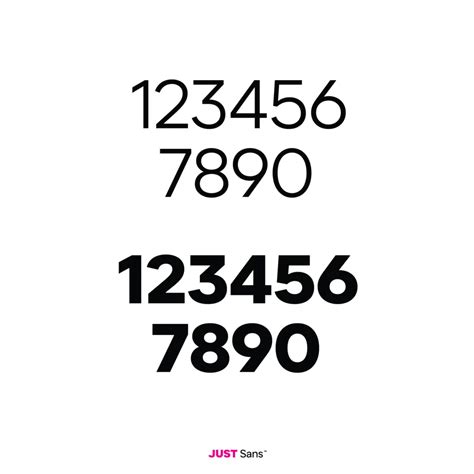
Best Numerical Fonts. This font has two font files and creates a fancy look for your designs. Web the best number fonts 1.
Web this is elemental in articulating a point, regardless of the visual project. This font has two font files and creates a fancy look for your designs. Web impact label is a decorative font presented by tension type. Hence, we put together this article with a list of the best number fonts online to help you create more stylish designs. Web best number fonts for awesome designs: 50+ best number fonts for displaying numbers. Web the best number fonts 1. Didone room numbers display font family.
Web best number fonts for awesome designs: This font has two font files and creates a fancy look for your designs. Web impact label is a decorative font presented by tension type. Hence, we put together this article with a list of the best number fonts online to help you create more stylish designs. 50+ best number fonts for displaying numbers. Web best number fonts for awesome designs: Web this is elemental in articulating a point, regardless of the visual project. Web the best number fonts 1. Didone room numbers display font family.